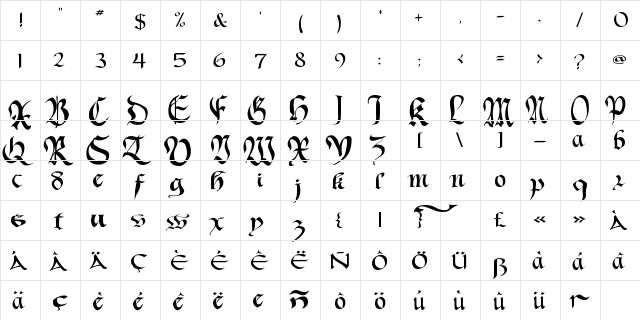
bouguignone flamande Regular
Design Context for bouguignone flamande Typeface
bouguignone flamande is a composed and adaptable typeface that performs quietly and consistently across a wide range of design contexts.